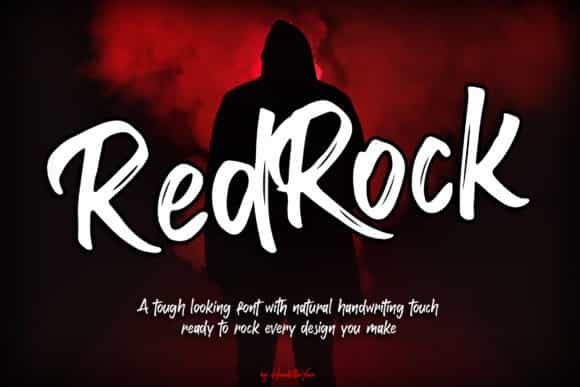
Red Rock is a robust handwriting brush script font with bold, casual style. The handmade fonts are very easy to read and understand. Each stroke is meticulously made to show the perfect connection and balance with a real life. You can make a lot of different combinations by using the opentype features.